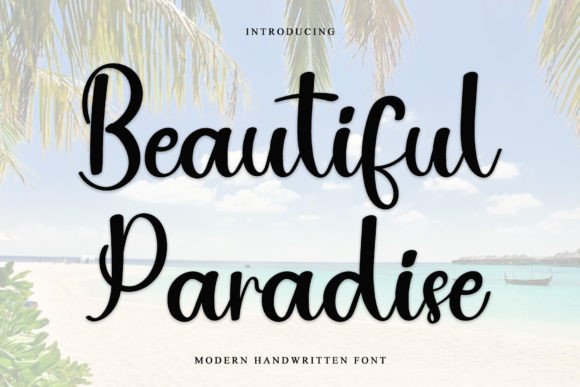
Enter the enchanting realm of Beautiful Paradise, a script font family that will captivate your imagination and transform your creative projects into masterpieces. This meticulously crafted font, brought to life by the talented PiPi Creative, exudes elegance and charm, adding a touch of sophistication to any design.
Immerse yourself in the world of Beautiful Paradise, where delicate strokes dance across the page, leaving a trail of beauty and wonder. With its timeless style, this font is the perfect choice for those seeking a unique and captivating aesthetic. From logos and branding to social media graphics and website designs, Beautiful Paradise will elevate your creations, making them stand out from the crowd.
Unleash the endless possibilities of Beautiful Paradise and embark on a creative journey like no other. Its versatility knows no bounds, adapting seamlessly to a multitude of projects. Whether you're designing posters, invitations, or product packaging, this font will infuse your work with a touch of elegance and charm that will leave a lasting impression.
Experience the joy of using a font that not only enhances your designs but also evokes emotions. Beautiful Paradise possesses an innate ability to stir the senses, creating a connection between your audience and your message. Its enchanting flow and graceful curves will captivate your readers, inviting them to delve deeper into your content and engage with your brand on a profound level.
So, why settle for ordinary fonts when you can embrace the extraordinary? Choose Beautiful Paradise and unlock a world of creativity and inspiration. Let its timeless beauty and captivating charm elevate your designs to new heights, leaving an indelible mark on the minds of your audience. Embrace the allure of Beautiful Paradise today and embark on a journey of visual storytelling that will leave them spellbound.